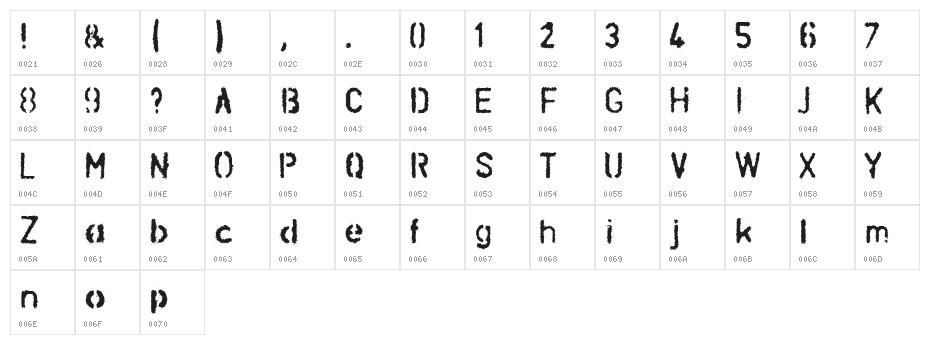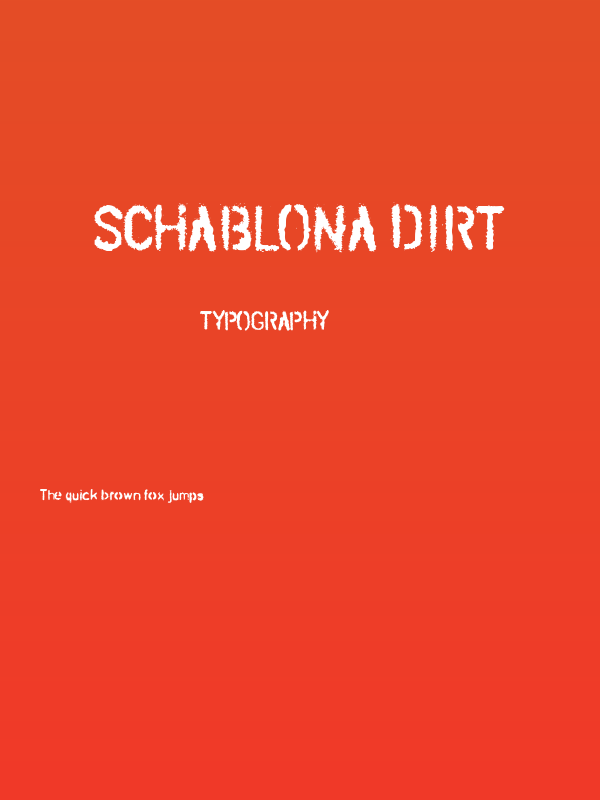
SCHABLONA DIRT Font
SCHABLONA DIRT Description
This font features a distressed, grunge style that gives it a unique, textured appearance. The characters appear as if they have been eroded or weathered, with irregular edges and a rough surface. This design choice creates a sense of ruggedness and rawness, making it ideal for projects that require a bold, impactful look. The uppercase and lowercase letters maintain consistent proportions, while the numerals and special characters follow the same distressed aesthetic. The font's overall appearance is both striking and unconventional, making it suitable for creative and artistic applications.
| Overall Style | Grunge, Distressed |
| Proposed Projects | Ideal for album covers, posters, street art designs, and edgy branding projects. |